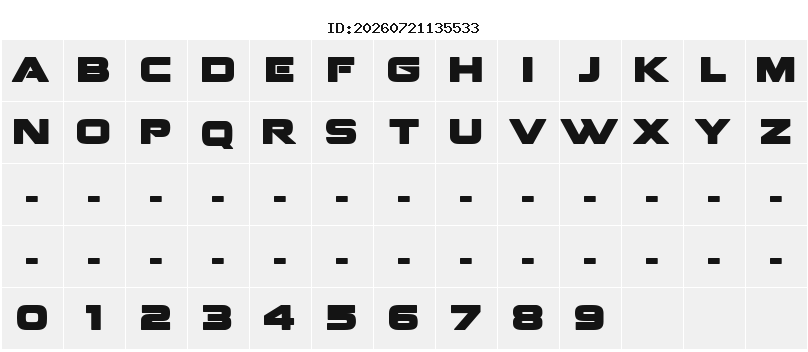
• Font Name: Fenix BlackletterCaps
• Full Font Name: Fenix BlackletterCaps
• Manufacturer: TracerTong
Fenix BlackletterCaps.ttf is a modern, elegant sans-serif font designed for ultimate readability and visual harmony. Perfect for branding, headlines, web design, and print materials.